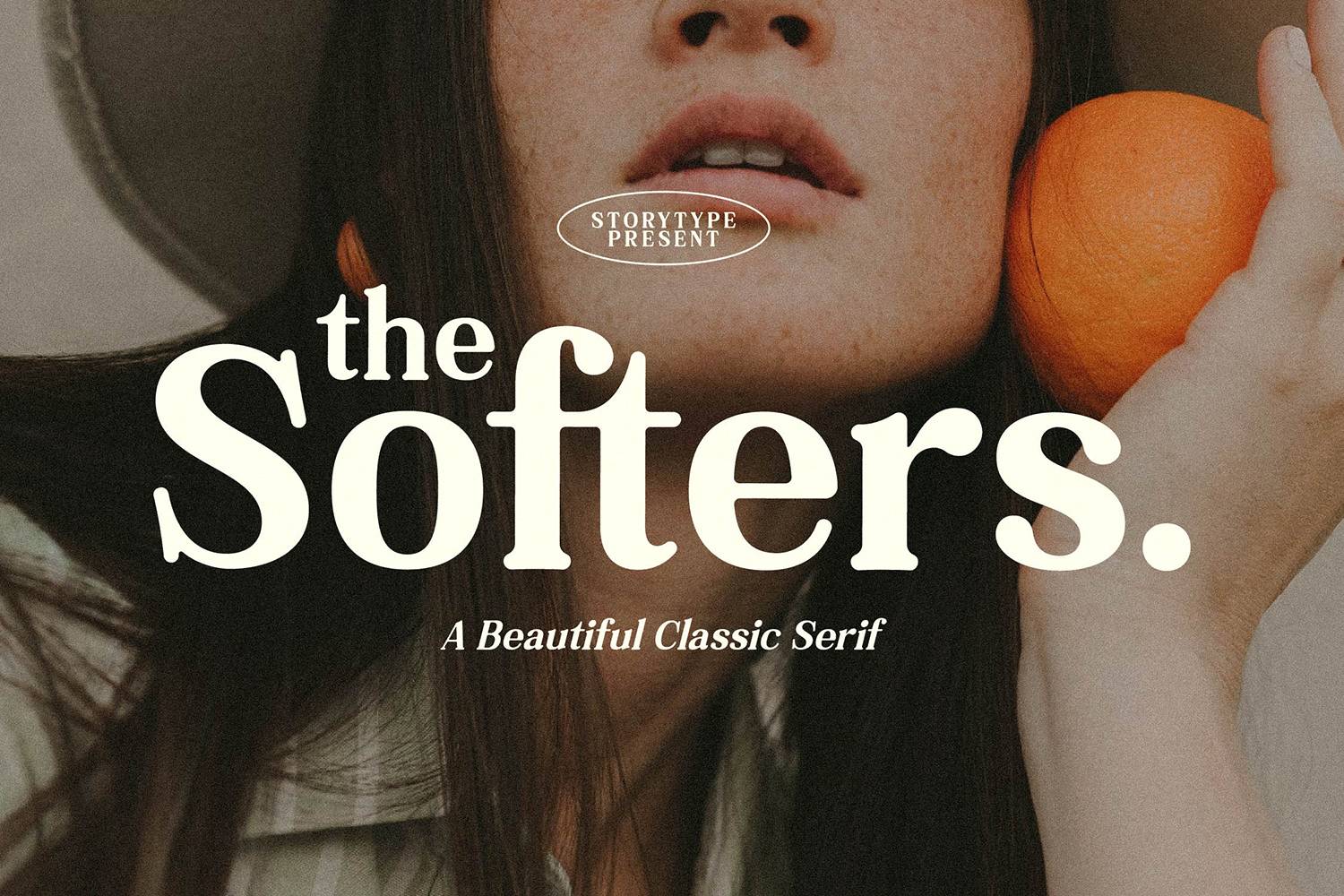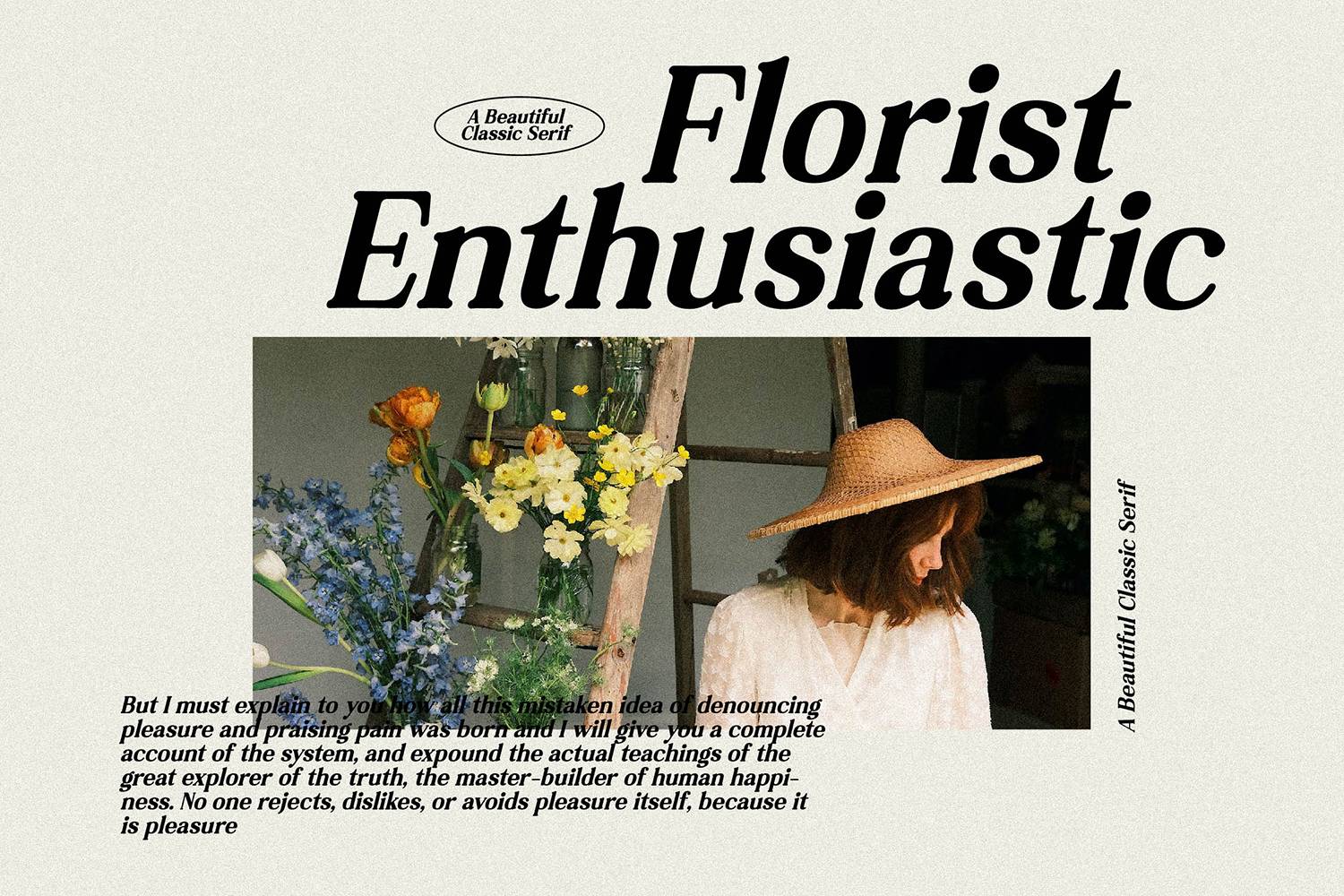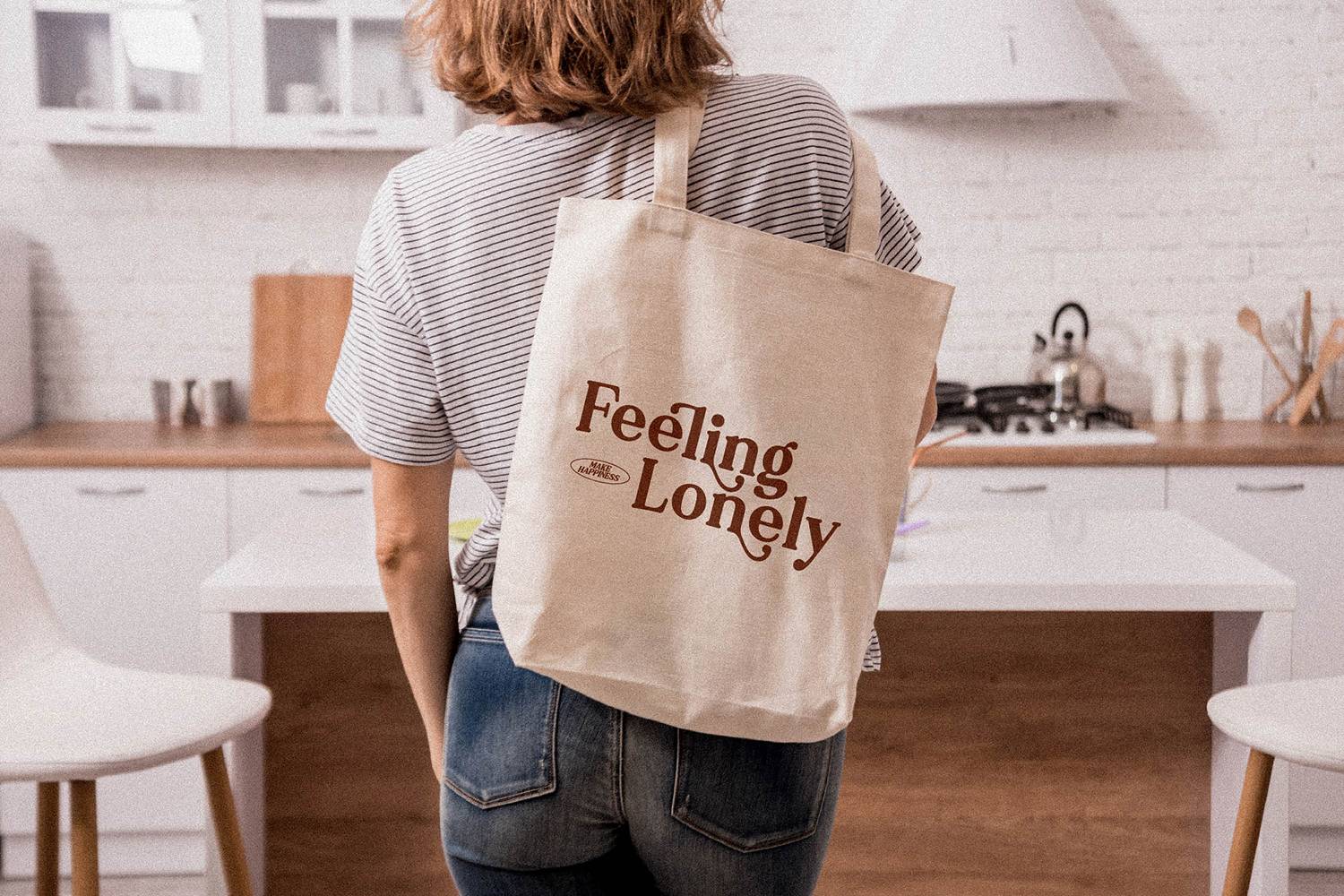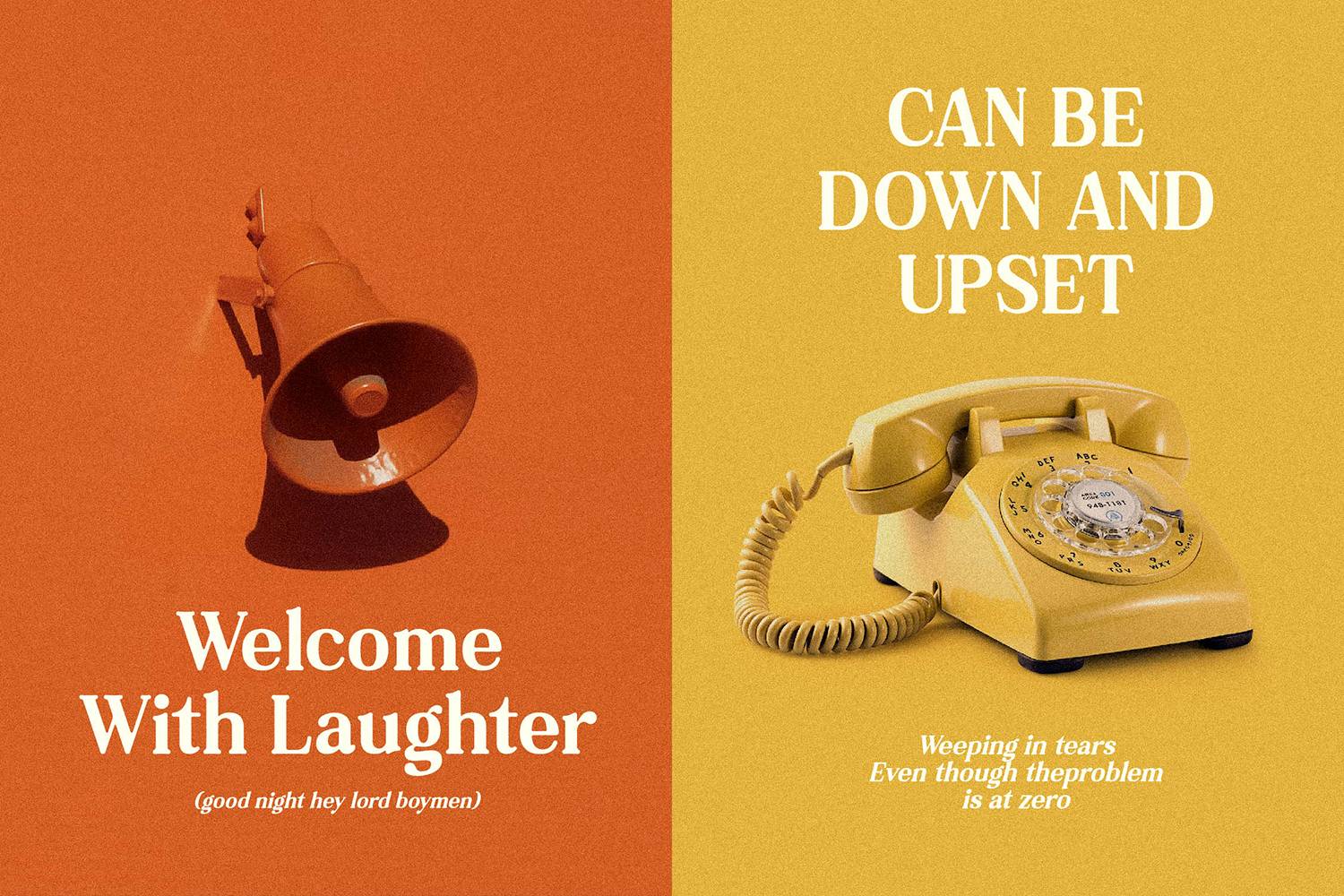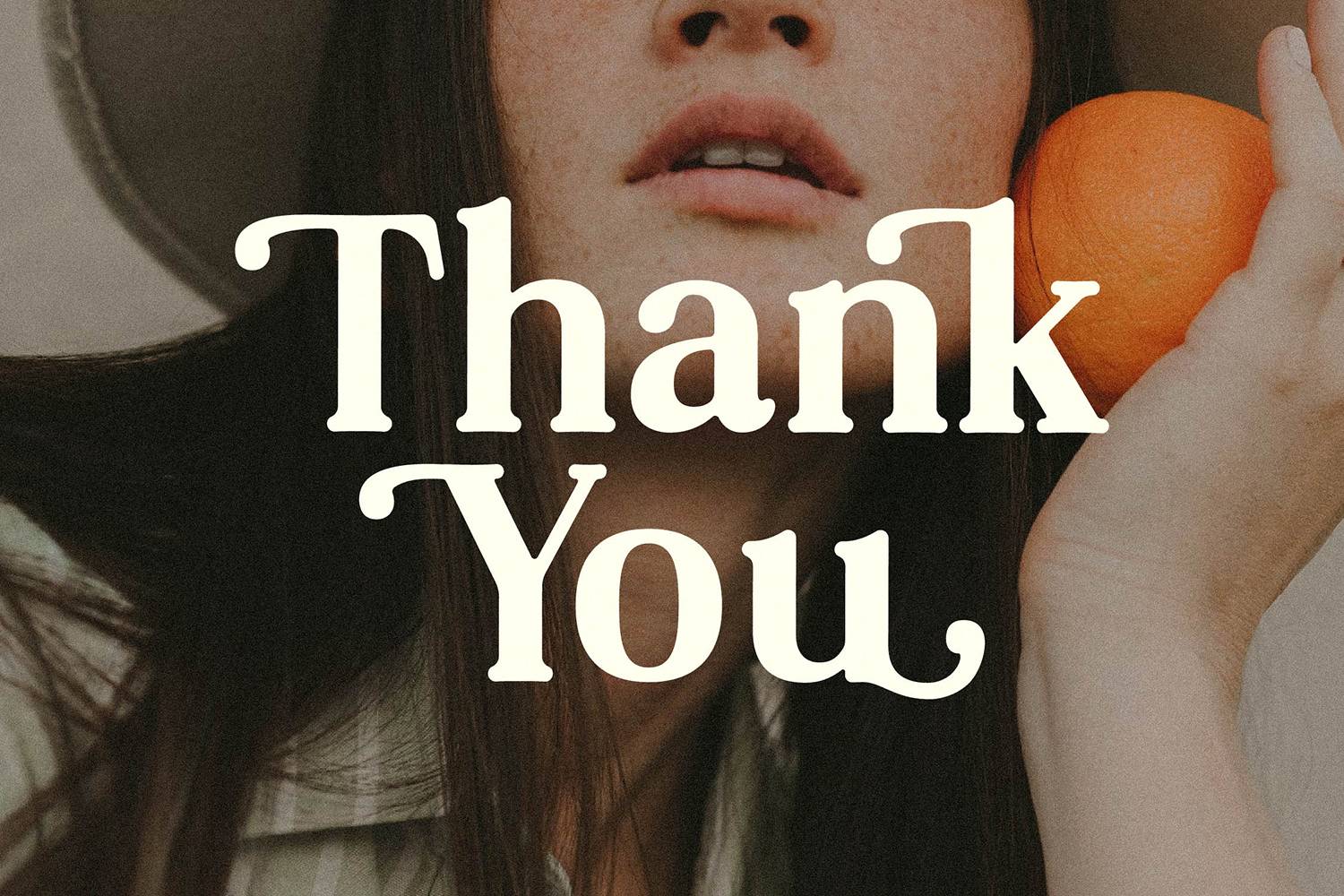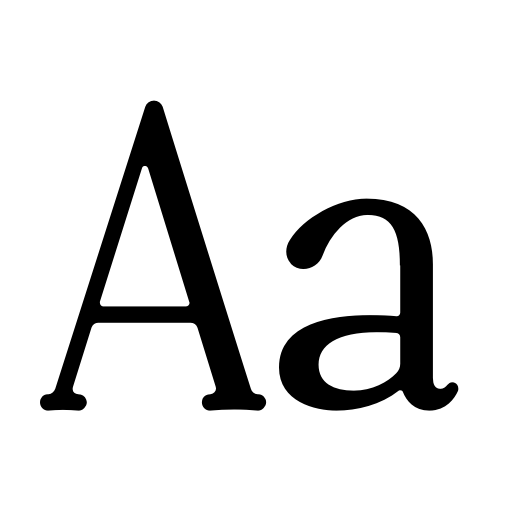
Softers is a classic serif font with a sturdy, medium weight and moderate contrast between thick and thin strokes, giving it a timeless and reliable feel. Its bracketed serifs and slightly condensed letterforms provide a refined yet approachable appearance, making it ideal for editorial design, branding, and headlines where a touch of tradition with modern clarity is needed. This font works well for projects seeking a balance of elegance and readability, especially in print and branding contexts.
Softers Font
About Softers Font